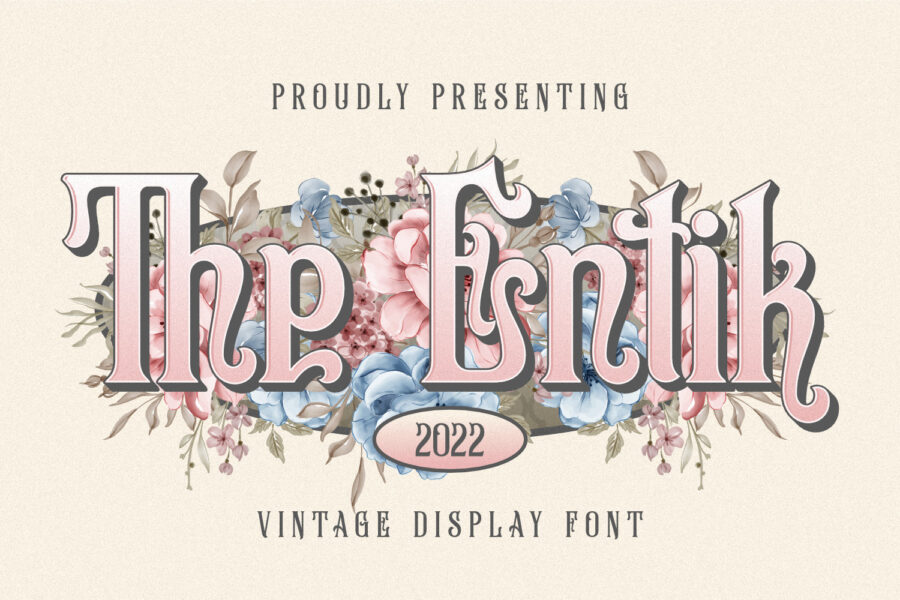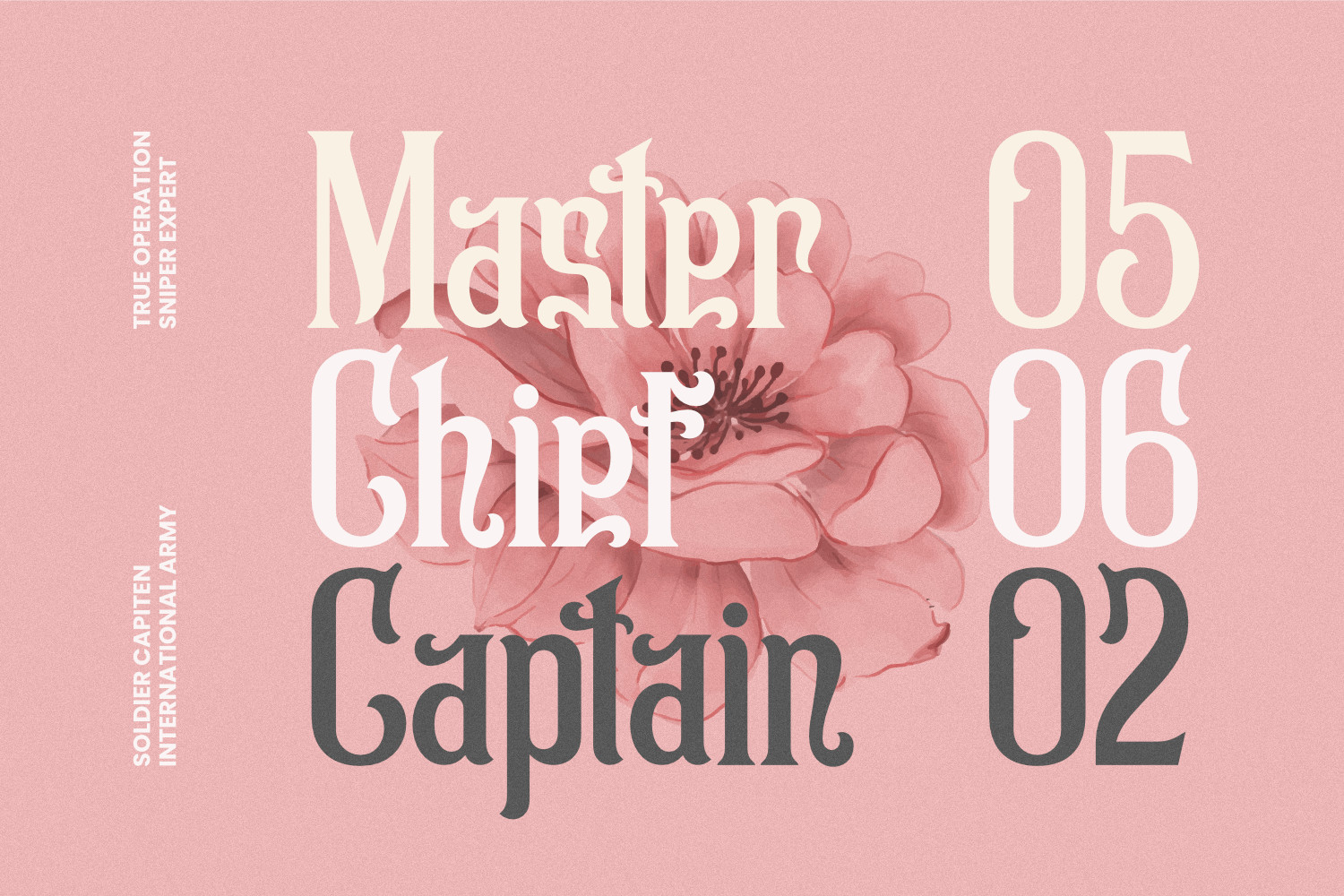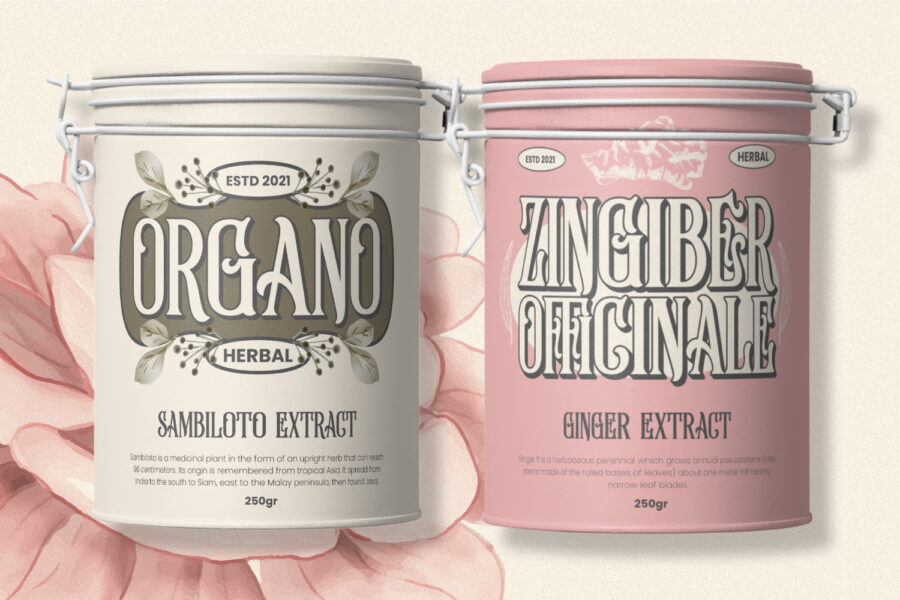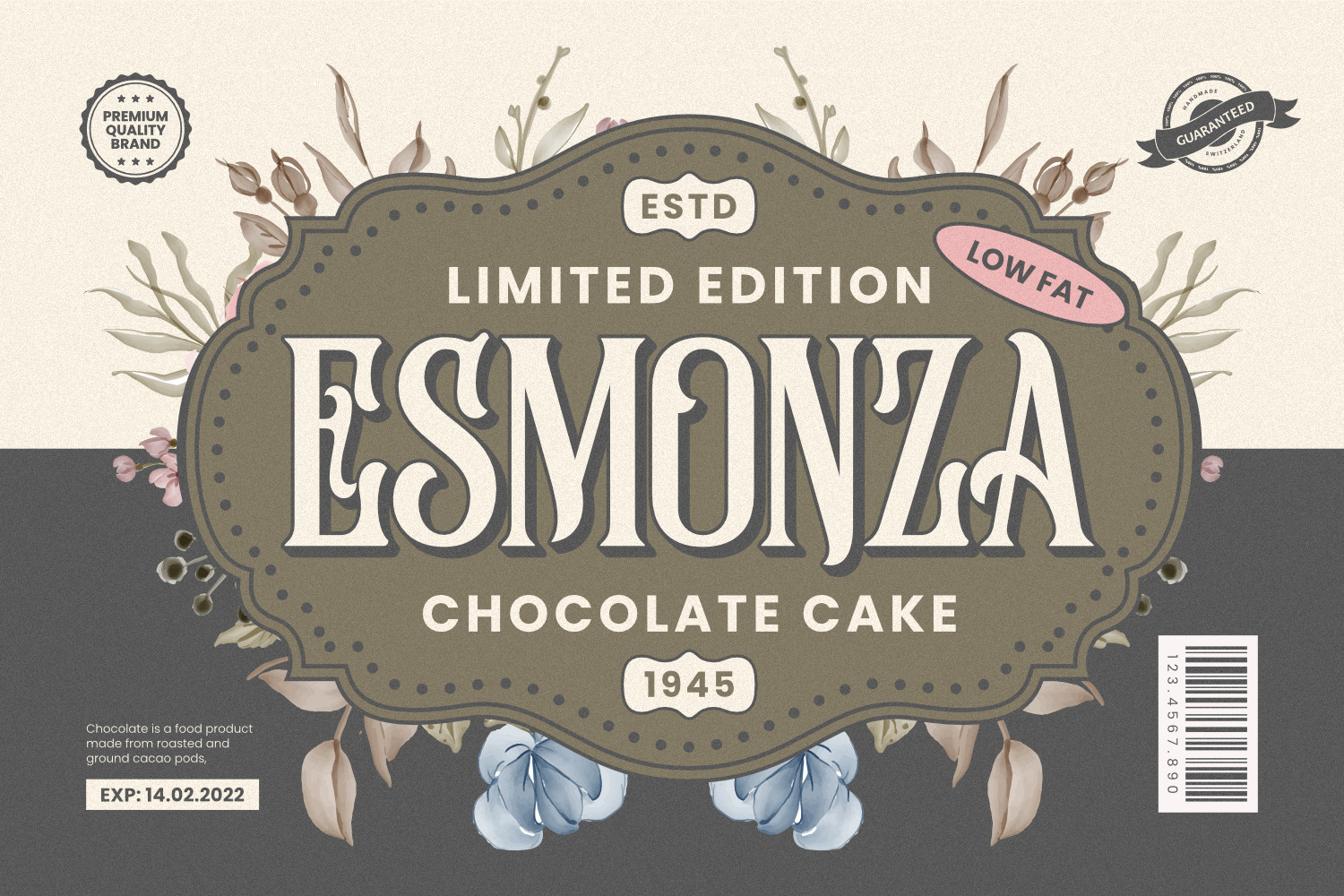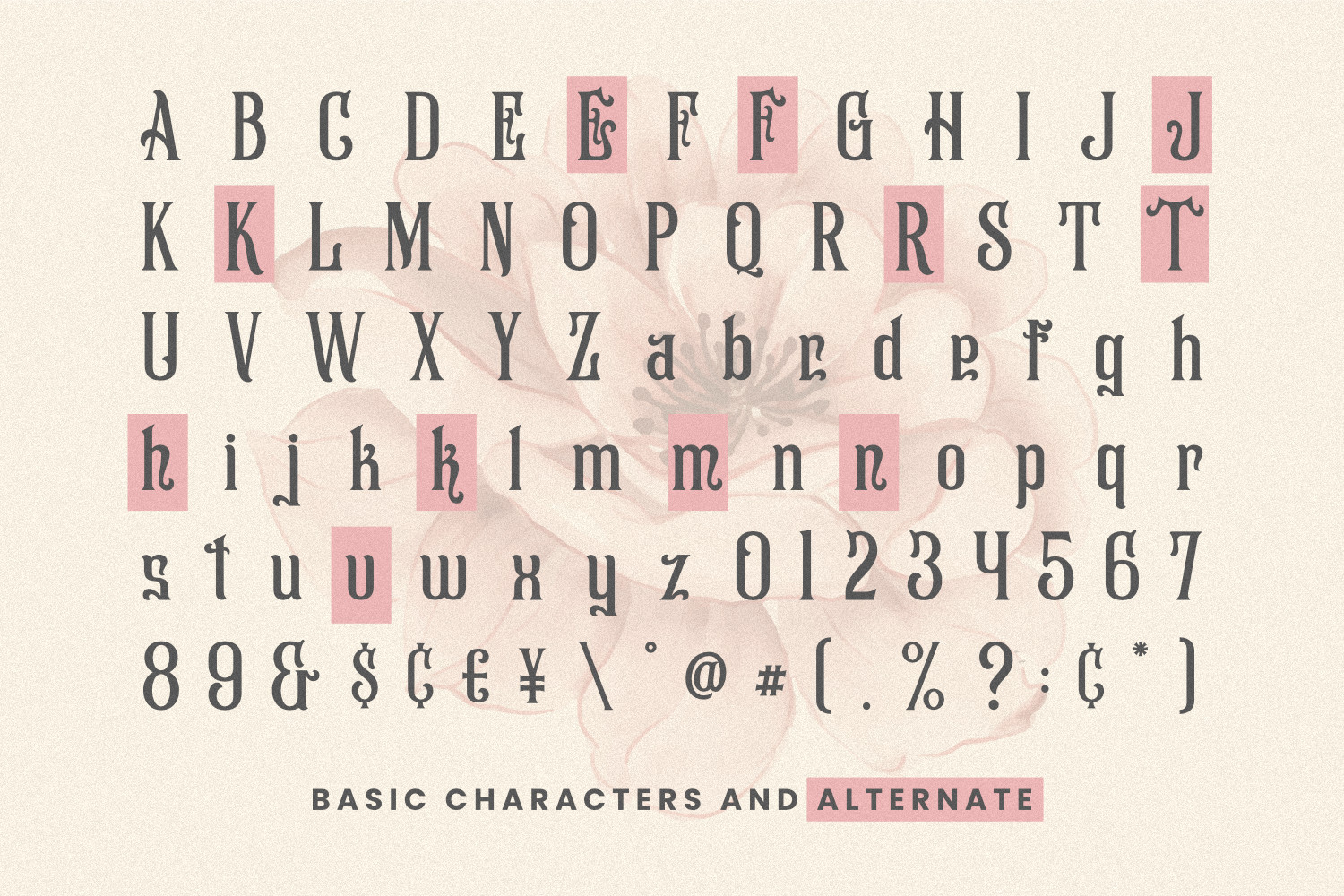
The Entik is a charming vintage display font that blends ornamental elegance with classic gothic-inspired lettering. Each character is thoughtfully crafted with subtle flourishes and strong contrast, creating a nostalgic yet contemporary aesthetic. The font is beautifully complemented by floral visuals and alternate stylistic sets, making it ideal for boutique branding, editorial titles, and artisan packaging.
Its tall x-height and decorative alternates give a whimsical character to headlines, while maintaining excellent legibility. The Entik supports multilingual characters, ligatures, and special glyphs ensuring it performs well in both digital and print design. Whether you’re crafting romantic wedding invitations or nostalgic product labels, The Entik adds timeless sophistication with a soft vintage soul.
The Entik